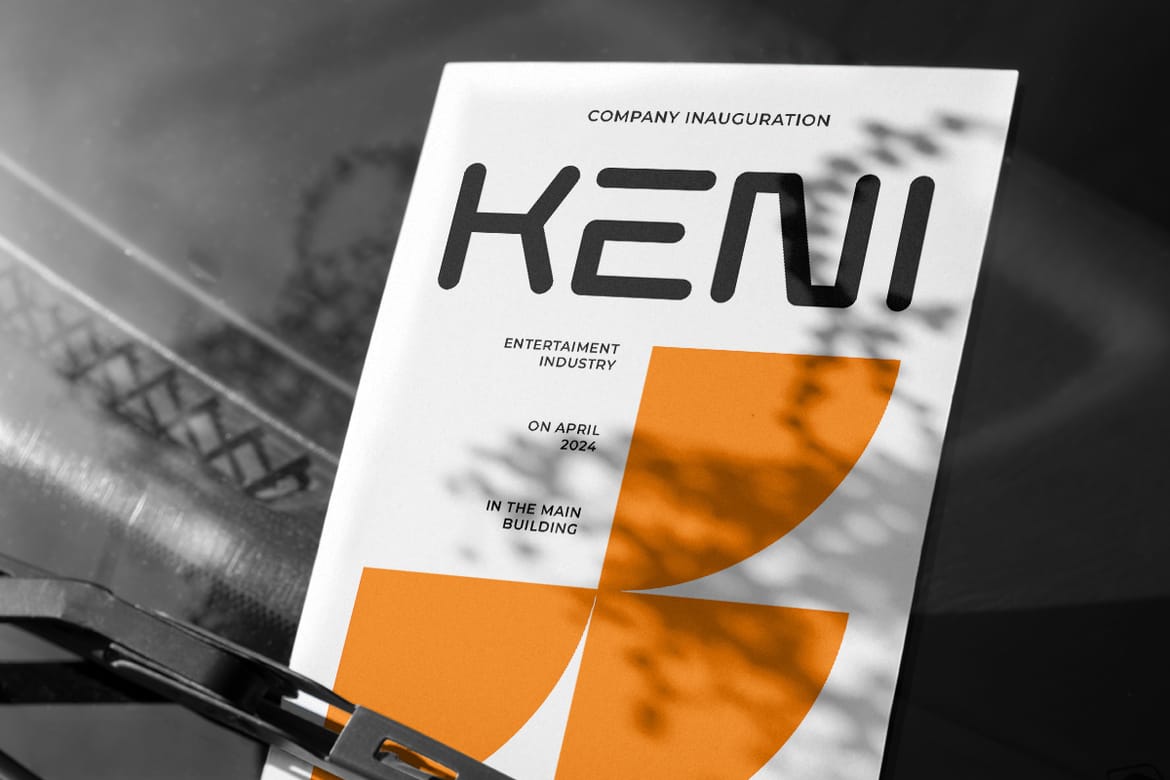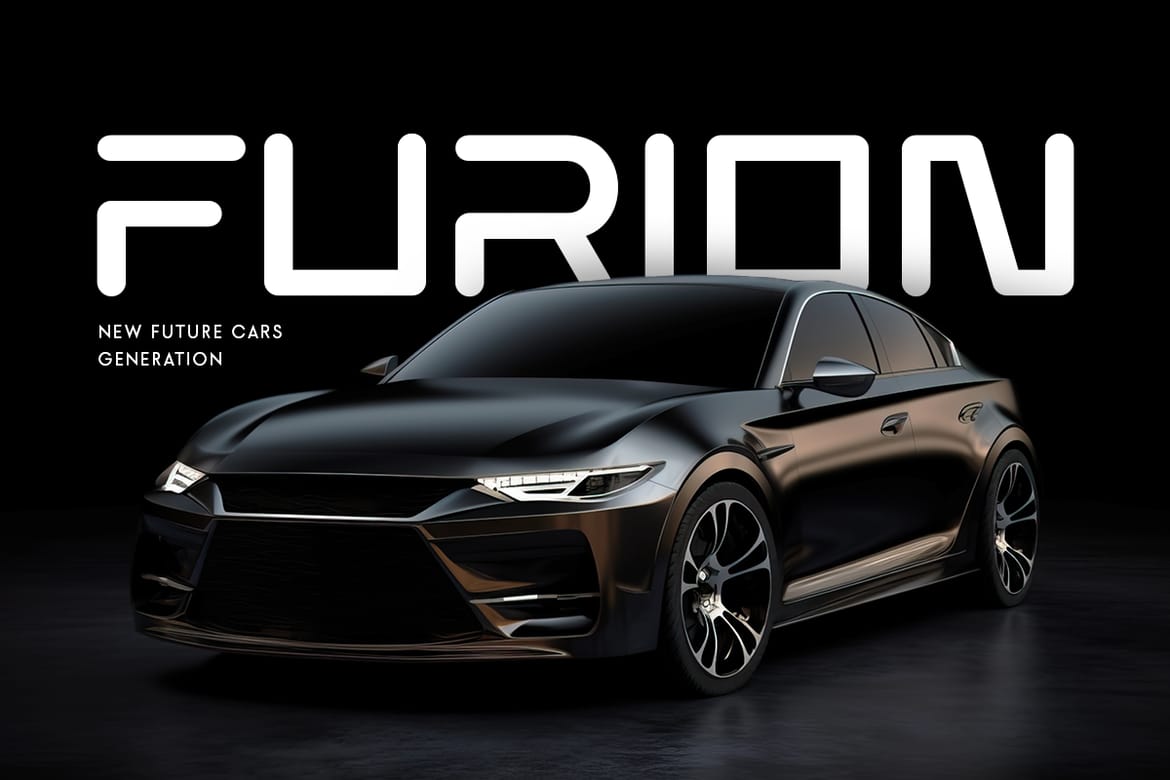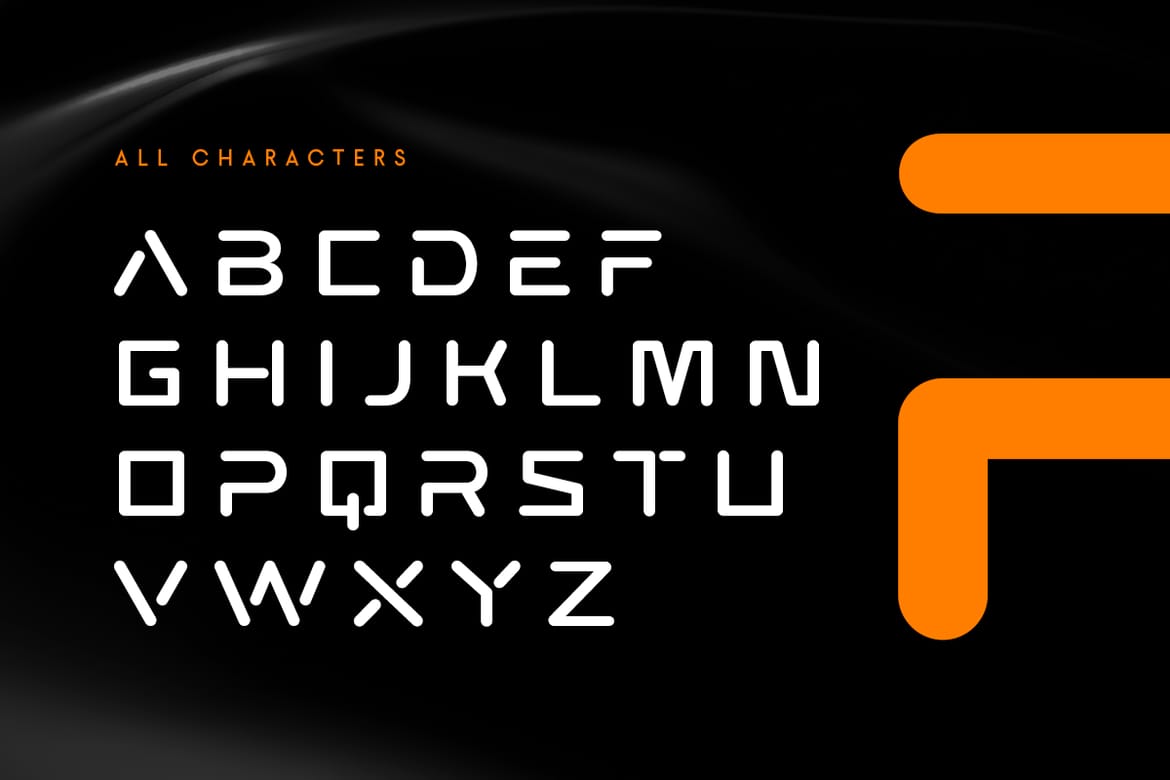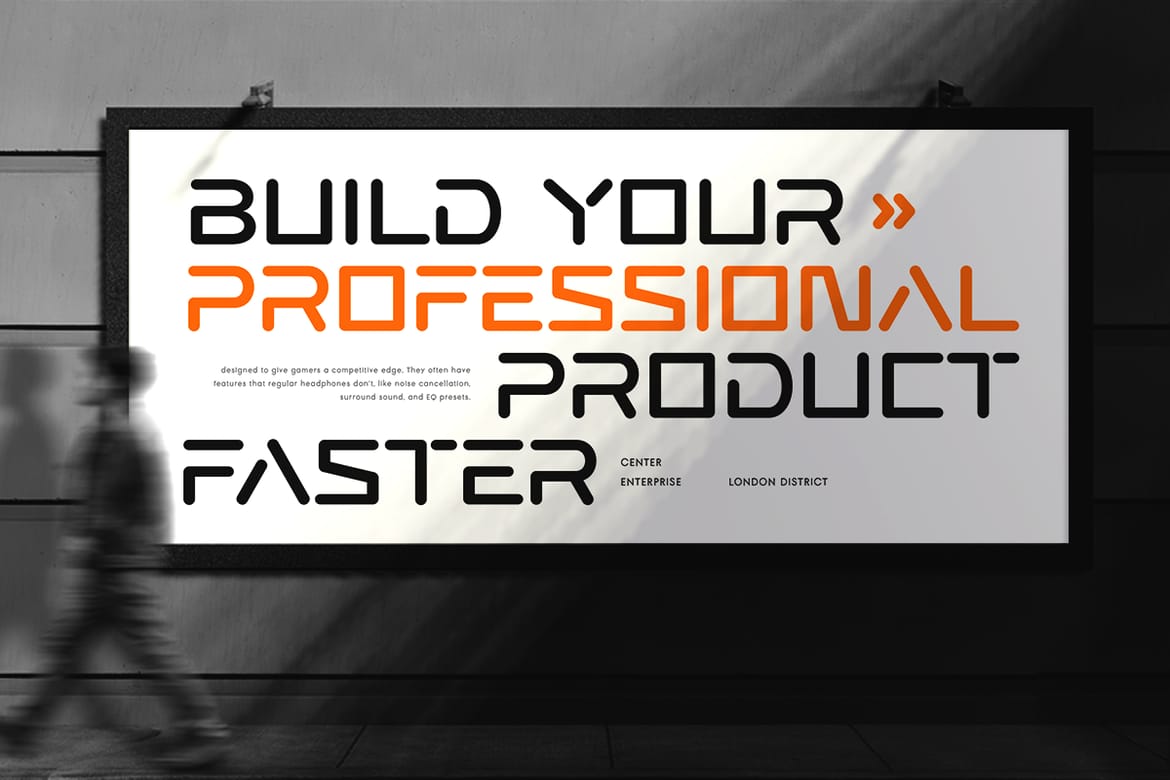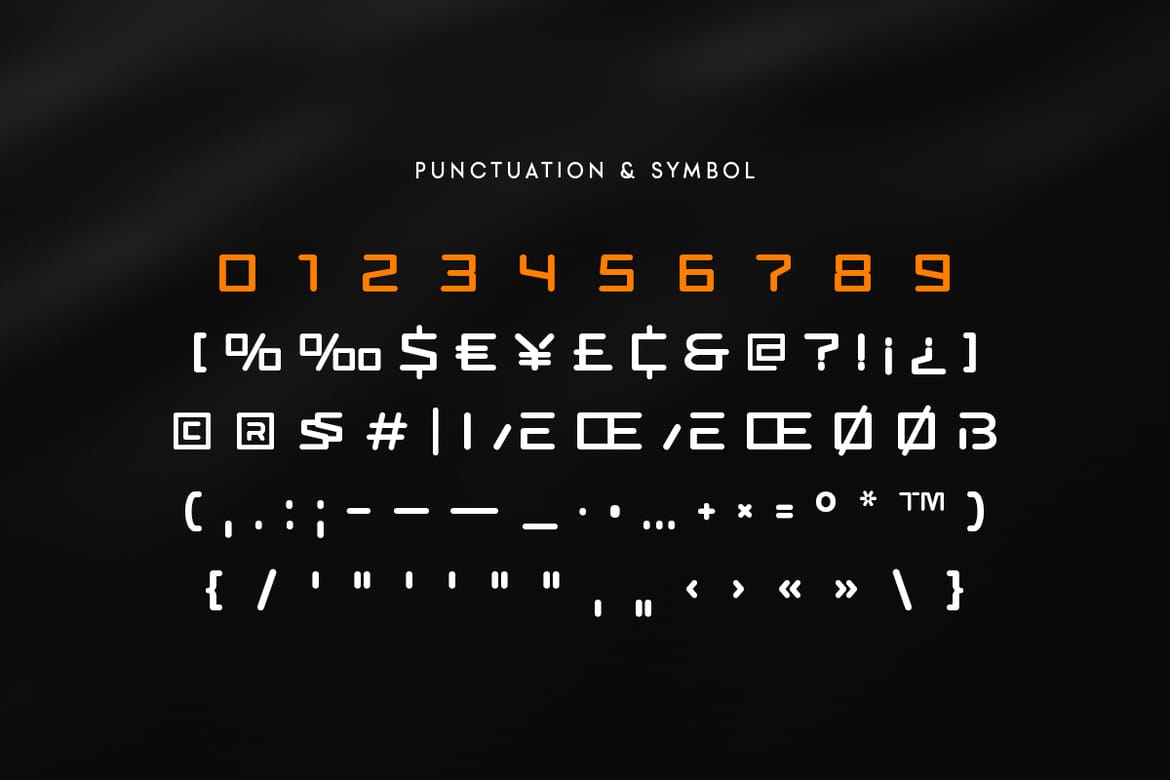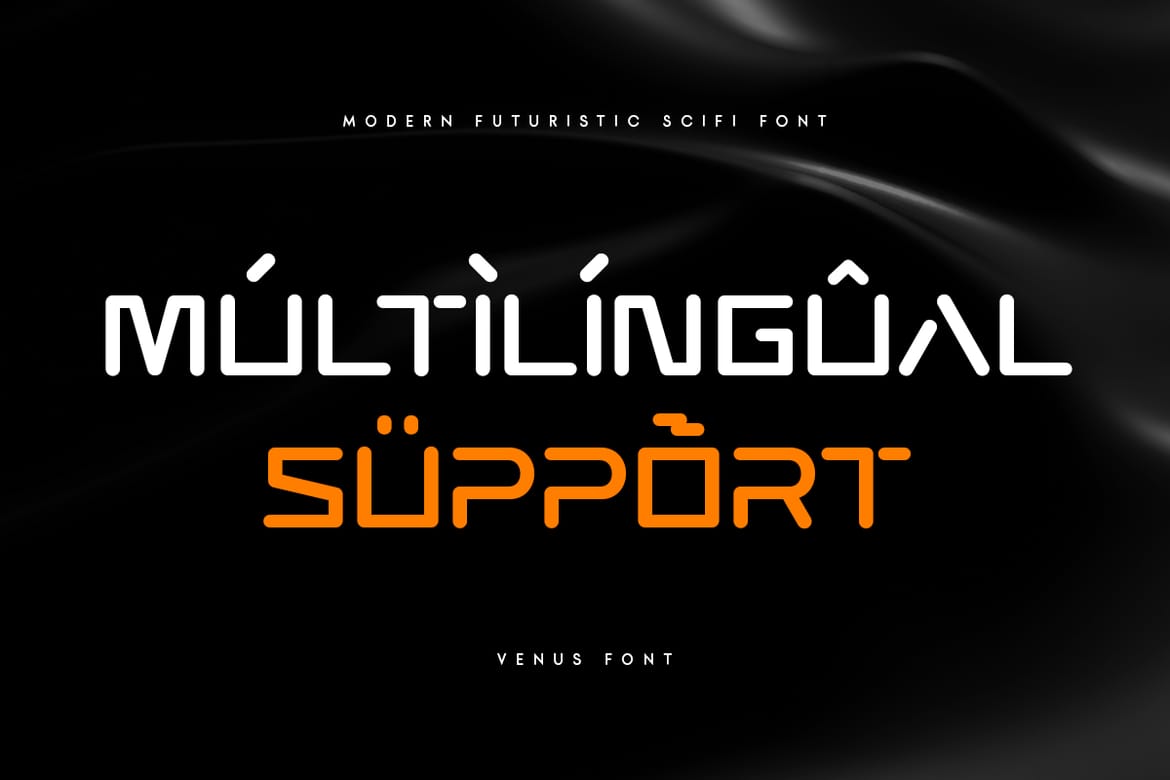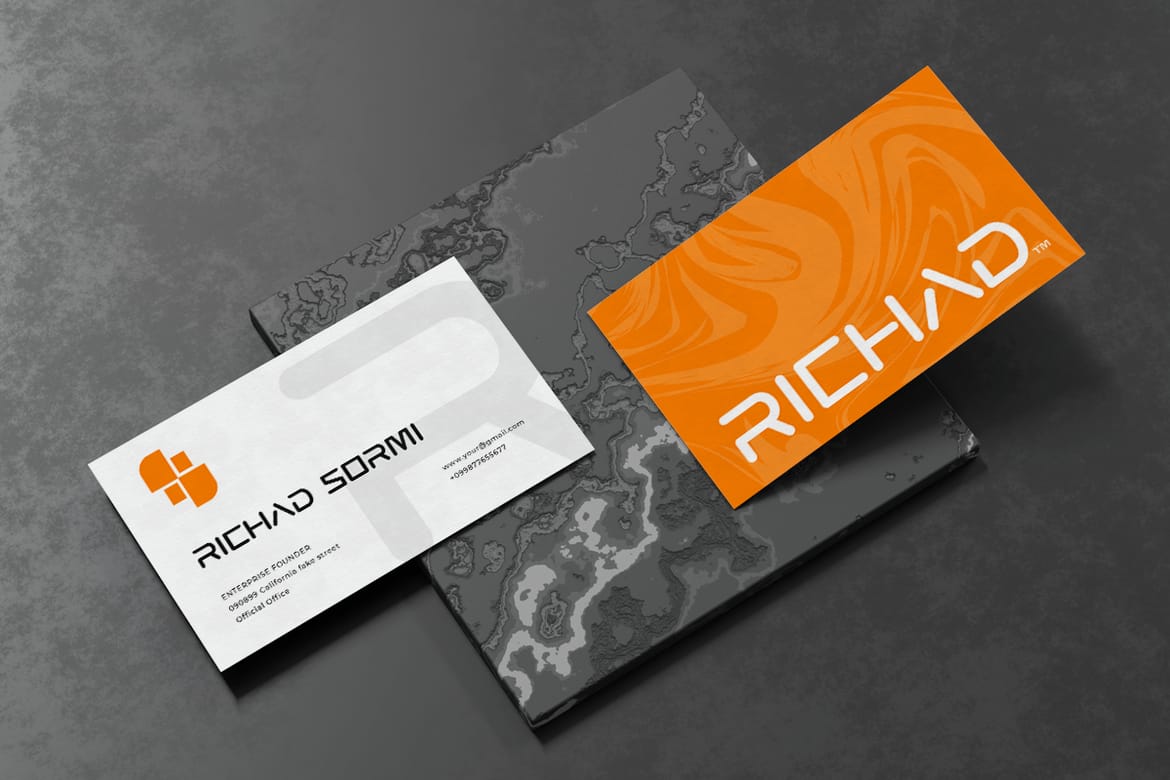
Introducing VENUS, the ultimate futuristic font designed for sci-fi and technology-themed projects. VENUS combines sleek lines and modern aesthetics to deliver a cutting-edge look that enhances any design.
VENUS Font Features:
Futuristic Glyphs: Unique characters that evoke a modern, tech-forward vibe.
Sci-fi Accents: Distinctive elements inspired by space and futuristic themes.
Smooth Curves: Sleek and smooth letterforms for a polished look.
Extended Character Set: Supports multiple languages and symbols.
High Legibility: Clear and readable, perfect for both headlines and body text.
Professional Kerning: Precisely adjusted spacing for a professional finish.
Elevate your designs with VENUS, the font that embodies the essence of futuristic and technological innovation. Whether for branding, digital media, or creative projects, VENUS adds a sleek and sophisticated touch to your work. Embrace the future with VENUS and transform your designs today.
- Futuristic sci-fi display font
- Extended multilingual character set